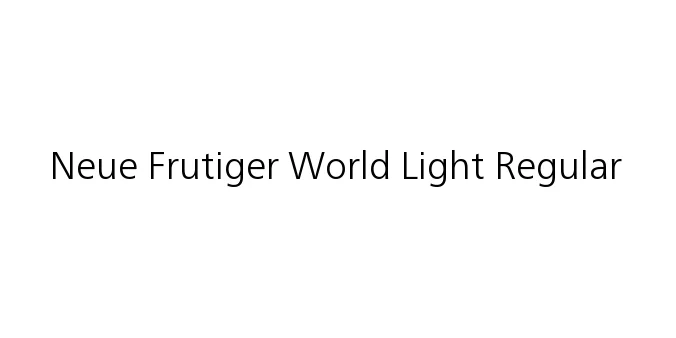
Neue Frutiger World Light Regular
Designed by Adrian Frutiger, Akira Kobayashi
| Font Name | Neue Frutiger World Light |
| Category | Humanist Sans Serif |
| Designer | Adrian Frutiger, Akira Kobayashi |
| Similar Fonts | Helvetica, Univers, Myriad Pro, Segoe UI |
Neue Frutiger World is an expansive and versatile evolution of the original Frutiger typeface, which was initially designed by Adrian Frutiger in 1975 for the Charles de Gaulle Airport wayfinding system. This modern 'World' version was developed by Monotype's Akira Kobayashi to address the needs of global communication, supporting more than 150 languages across various scripts including Cyrillic, Greek, Arabic, Hebrew, Thai, and Vietnamese. It maintains the legendary legibility and humanist warmth of the original design while providing a unified aesthetic for international brands.
The Light Regular weight offers a delicate, refined appearance that excels in both digital and print environments. Because it retains the open apertures and distinct character shapes of the Frutiger family, it remains highly readable even at smaller point sizes or in challenging lighting conditions. This specific weight is often favored for its sophisticated, airy feel, making it an excellent choice for modern corporate identities, minimalist user interfaces, and high-end editorial layouts where clarity and elegance are equally important.
Neue Frutiger World Light Regular Best Uses
Optimized for maximum visibility and clarity in public spaces and transit systems.
Ensures a consistent visual identity for multinational companies across different regions.
Provides a clean and approachable aesthetic for mobile apps and web platforms.
Ideal for annual reports, brochures, and professional documentation requiring a modern touch.